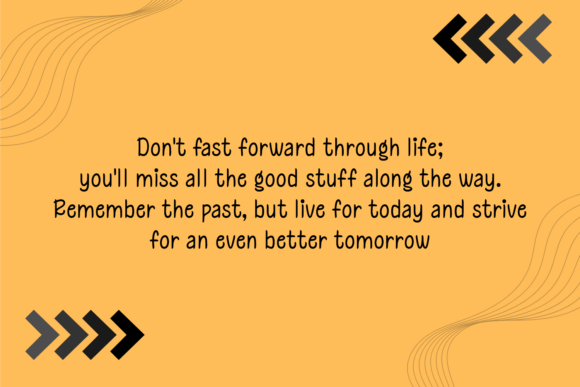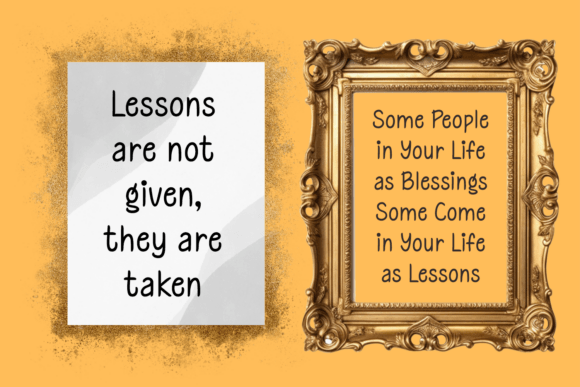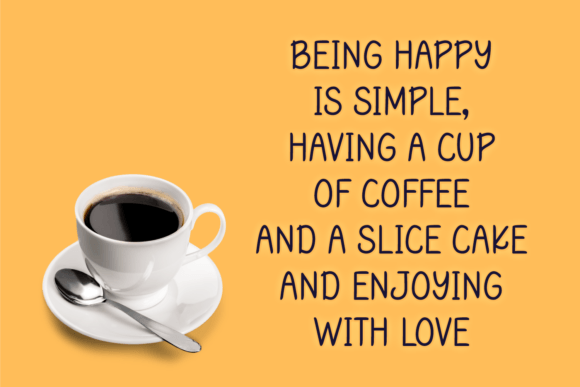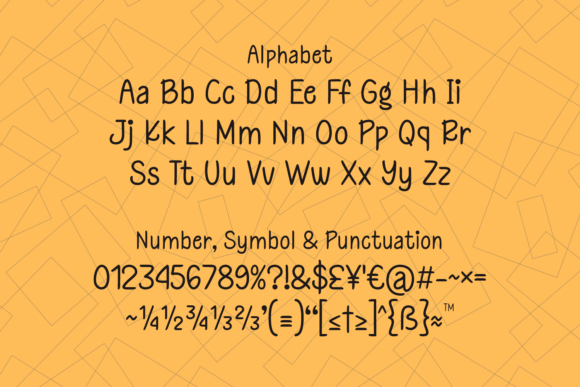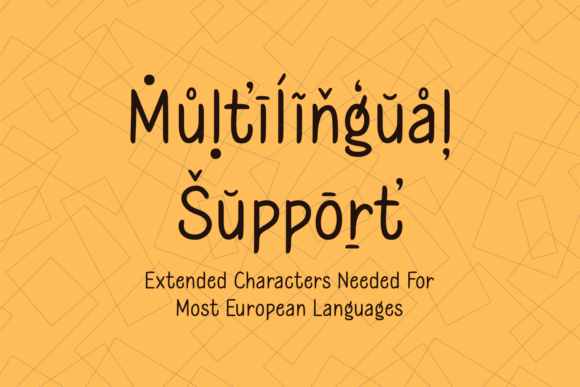
Cute Grape Font: The Sweetest Addition to Your Design Collection
Are you tired of using the same old fonts in your designs? Look no further than Cute Grape, a sweet and friendly handwritten font that’s sure to add a touch of personality to your projects. With its natural and unique style, Cute Grape is incredibly versatile and can be used in a wide range of designs, from crafting and scrapbooking to branding and advertising.
The Charm of Cute Grape
Cute Grape is a handwritten font that’s all about charm and character. Its sweet and friendly style makes it perfect for designs that need a personal touch. Whether you’re creating a logo, a label, or a social media graphic, Cute Grape is sure to bring a smile to your audience’s faces. The font’s natural and unique style also makes it incredibly fitting for a wide range of themes and occasions, from weddings and birthdays to holidays and special events.
The best part about Cute Grape is that the only limit is your imagination! This versatile font can be used in a multitude of designs, including:
- Crafting and Scrapbooking: Add a personal touch to your scrapbook pages, cards, and other craft projects with Cute Grape.
- Branding and Advertising: Use Cute Grape to create eye-catching logos, labels, and advertisements that will stand out from the crowd.
- Social Media Graphics: Add a touch of personality to your social media graphics, including Facebook posts, Instagram stories, and Twitter headers.
- Wedding and Event Designs: Make your wedding or event designs extra special with Cute Grape’s sweet and romantic style.
Why Choose Cute Grape?
So why choose Cute Grape over other fonts? Here are just a few reasons why this font stands out:
- Unique Style: Cute Grape has a one-of-a-kind style that’s sure to make your designs stand out.
- Easy to Read: Despite its playful style, Cute Grape is easy to read, making it perfect for designs that need to convey a message.
- Versatile: Cute Grape can be used in a wide range of designs, from formal to informal.
- Fun and Friendly: Cute Grape adds a touch of personality and whimsy to any design.
Tips for Using Cute Grape
Here are a few tips for getting the most out of Cute Grape:
- Experiment with Colors: Cute Grape looks great in a variety of colors, so don’t be afraid to experiment and find the perfect hue for your design.
- Mix and Match: Combine Cute Grape with other fonts and graphics to create a unique and eye-catching design.
- Keep it Simple: Don’t overcomplicate your design – Cute Grape is perfect for simple, yet effective designs.
Cute Grape is a sweet and friendly handwritten font that’s sure to add a touch of personality to your designs. With its natural and unique style, Cute Grape is incredibly versatile and can be used in a wide range of designs. Whether you’re a designer, crafter, or simply someone who loves to create, Cute Grape is a must-have font that’s sure to inspire your creativity. So why wait? Download Cute Grape today and start creating your own sweet and charming designs!